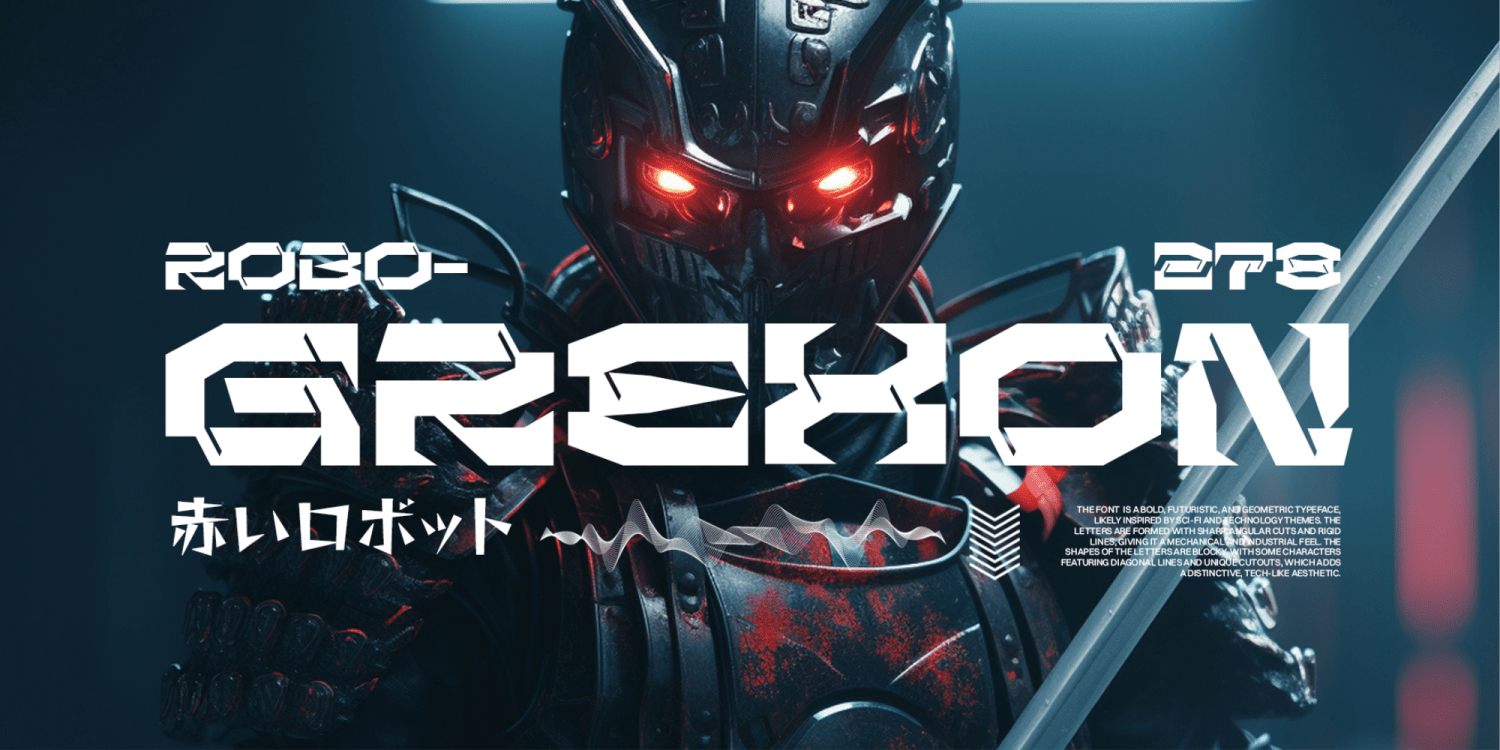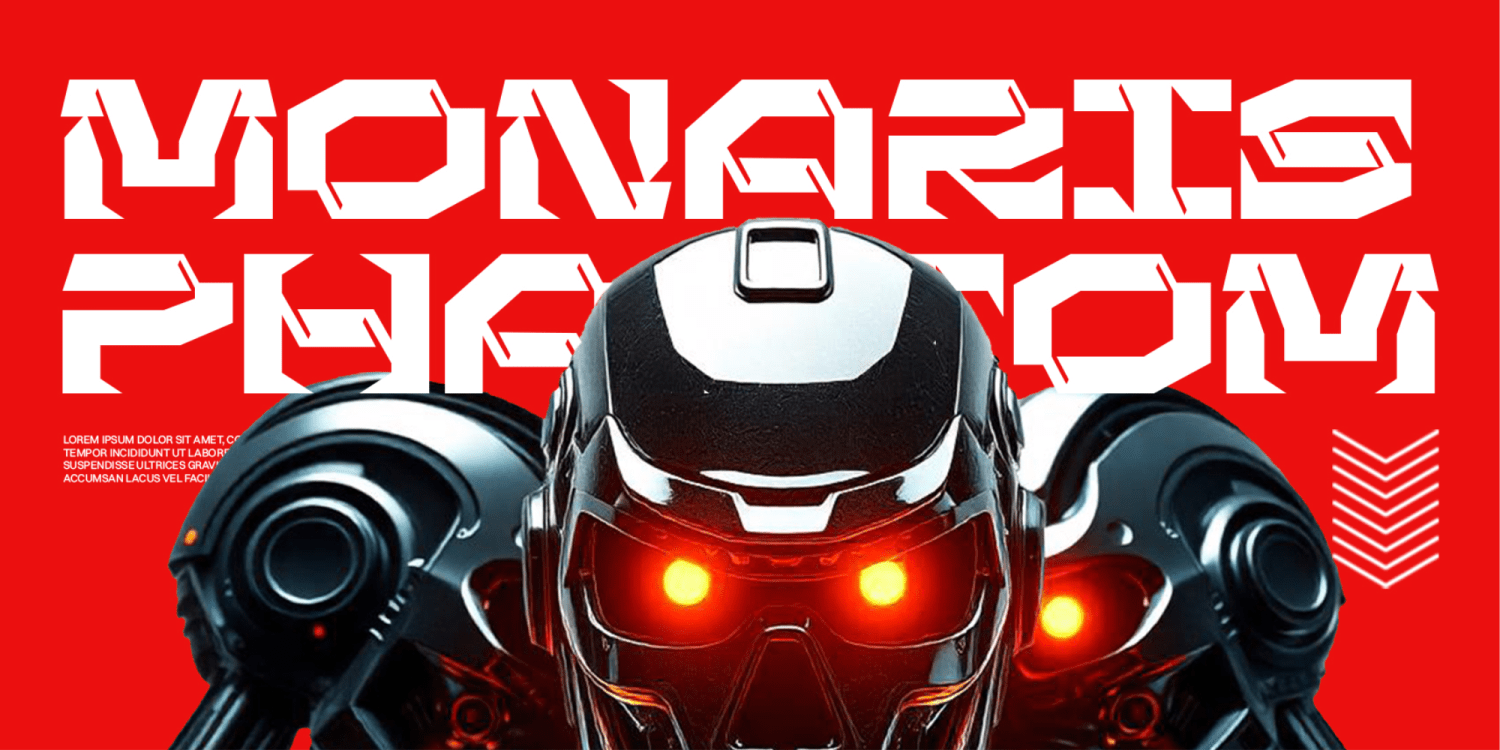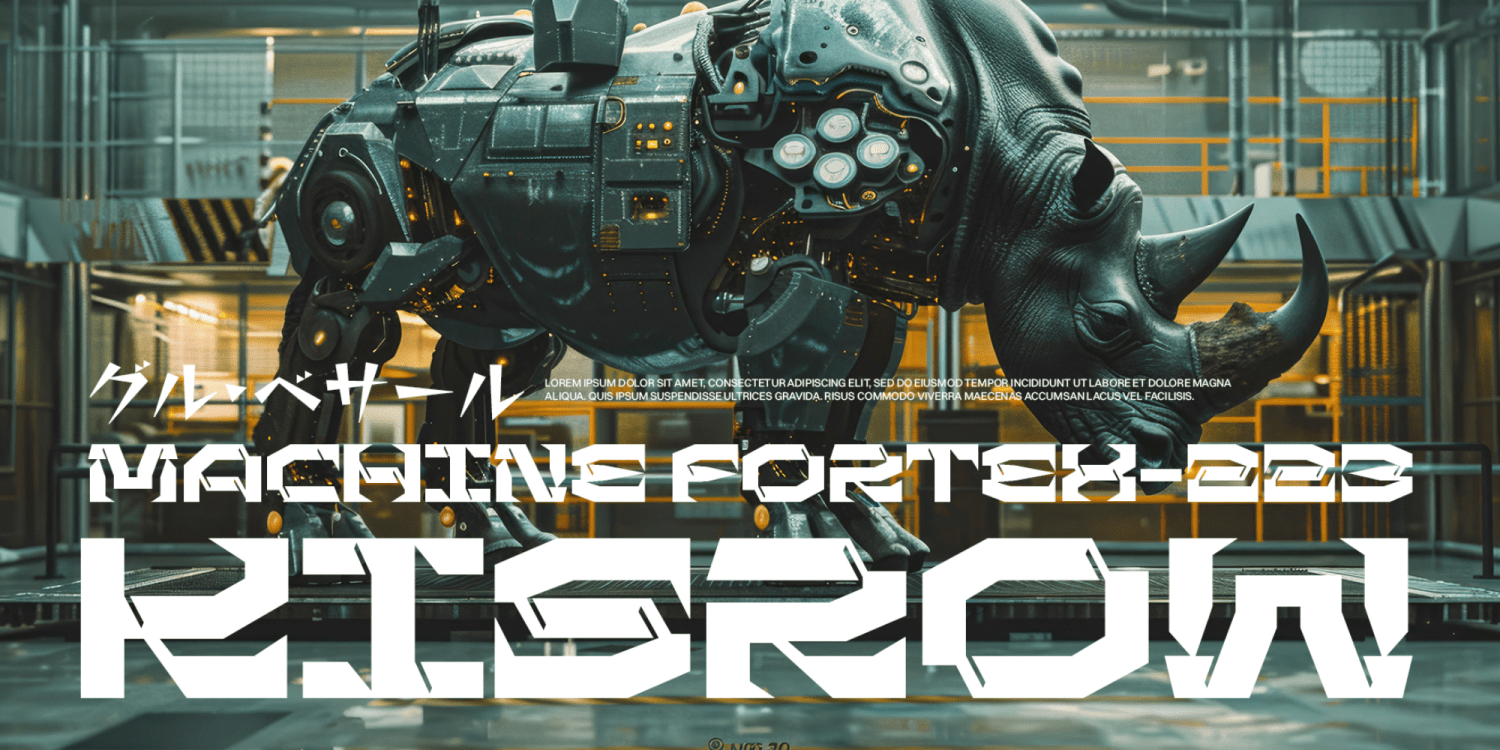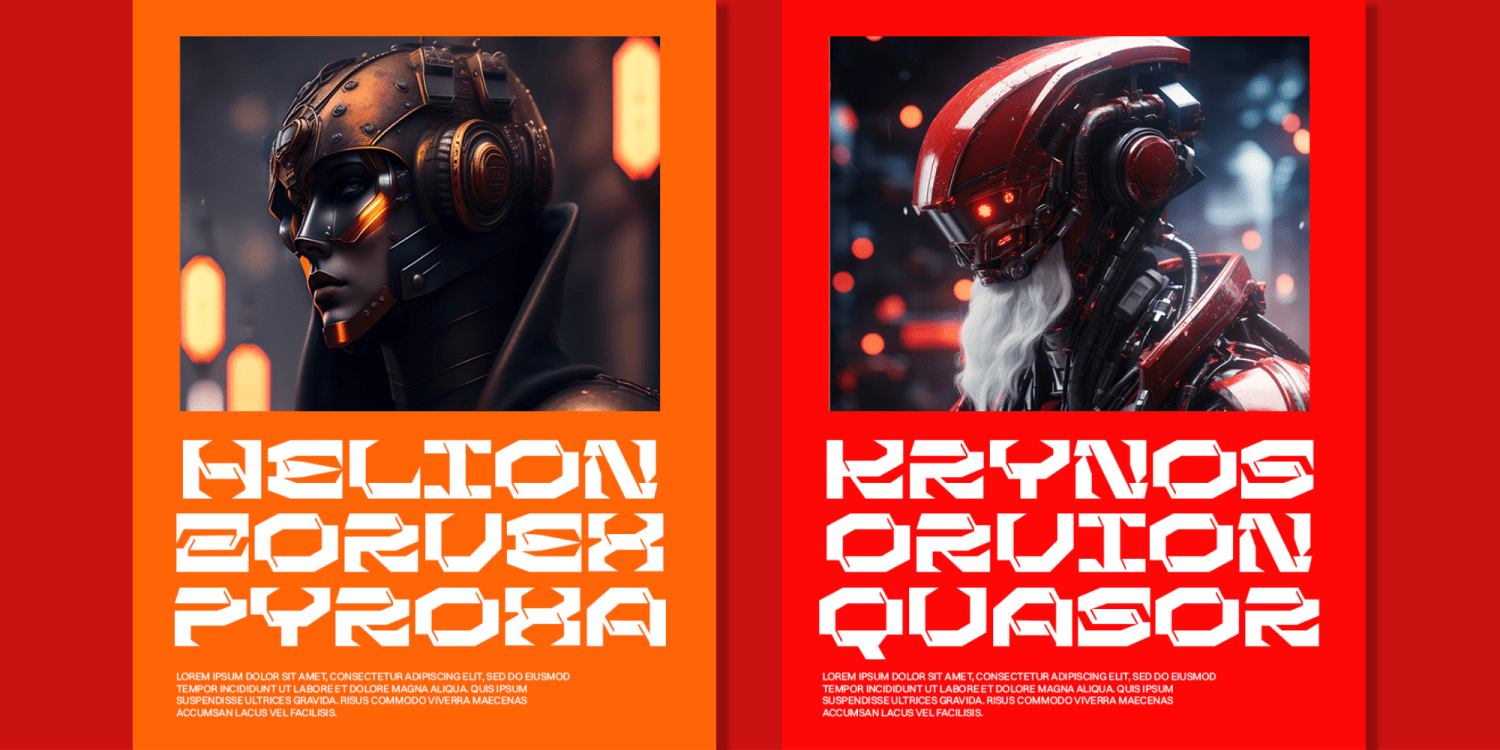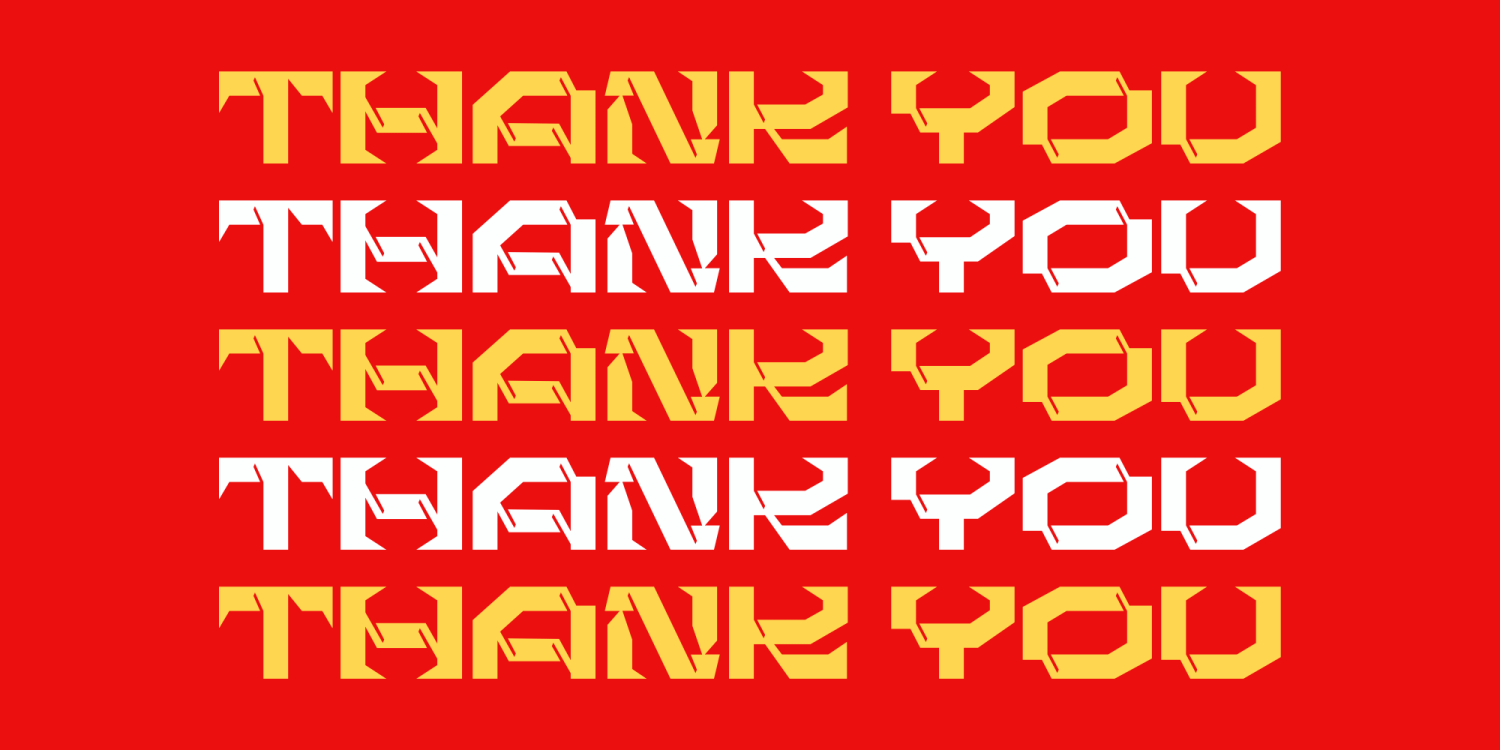
Grexon
Font Family by Marvadesign
Introducing Grexon is a bold, decorative techno-style font characterized by its strong, futuristic design. Its thick, solid strokes make it highly suitable for titles and headlines, ensuring a powerful visual impact. The font's geometric and angular elements give it a modern, high-tech feel, making it ideal for projects that require a bold, dynamic aesthetic. Grexon works particularly well in digital, sci-fi, or technology-related designs, where a distinctive, commanding presence is desired.